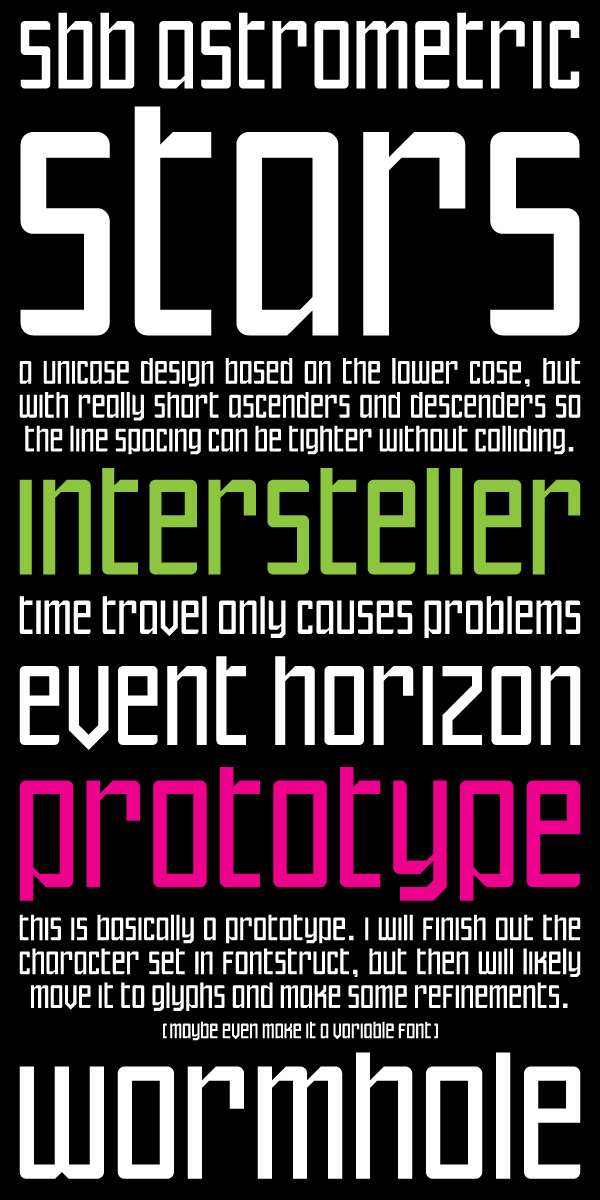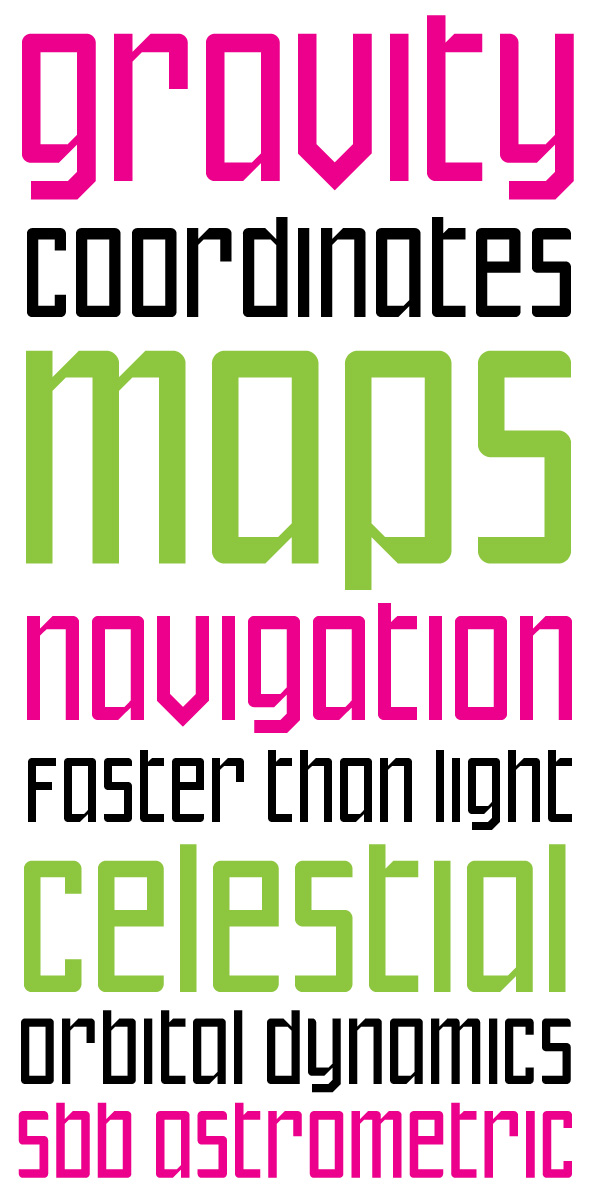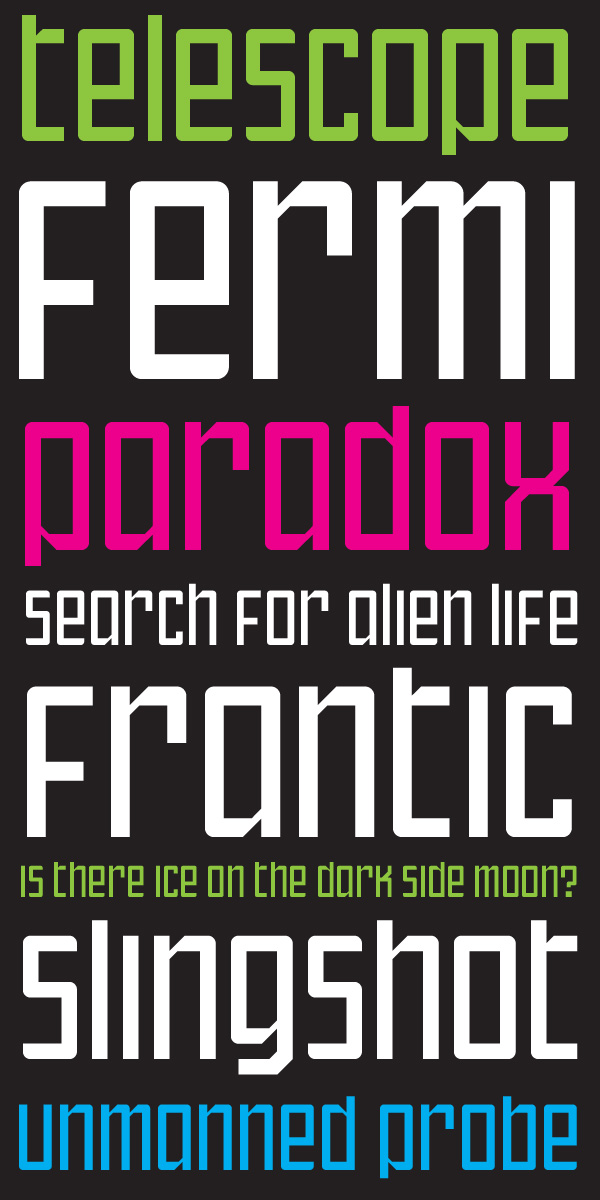
• SbB Astrometric Narrow is another attempt at a lowercase inspired unicase design. Really short ascenders and descenders. Still a work in progress. (I'm happy with the basic structure, so this is probably a prototype that I'll refine in Glyphs.)
Nice unicase, I like it.
Another example setting. (And I can't believe I misspelled "interstellar" on the original example.)
I was unhappy with the look of the f. So I just changed the proportions of the f (and then the e to match).
Sample with improved f and e.
I'm with this improvement.
I renamed this SbB Astrometric Narrow because I'm working on a wider version.